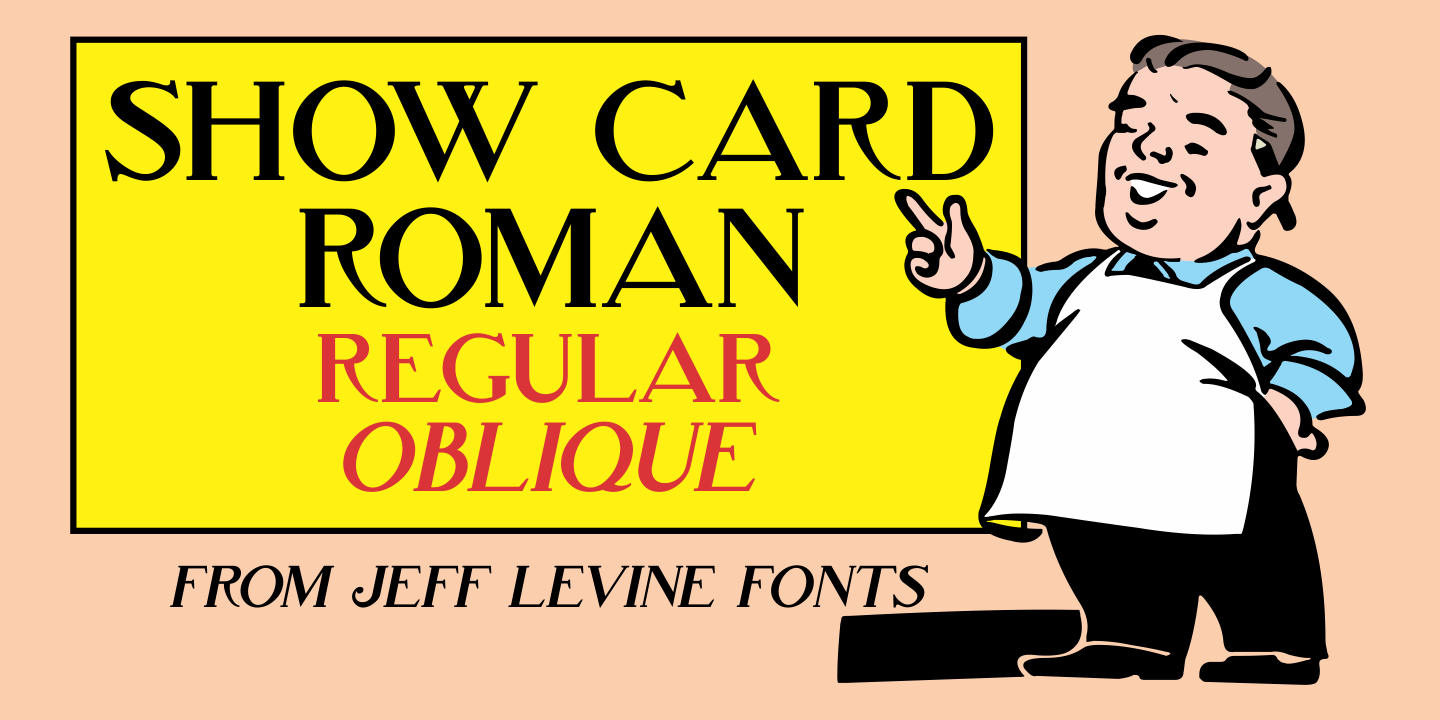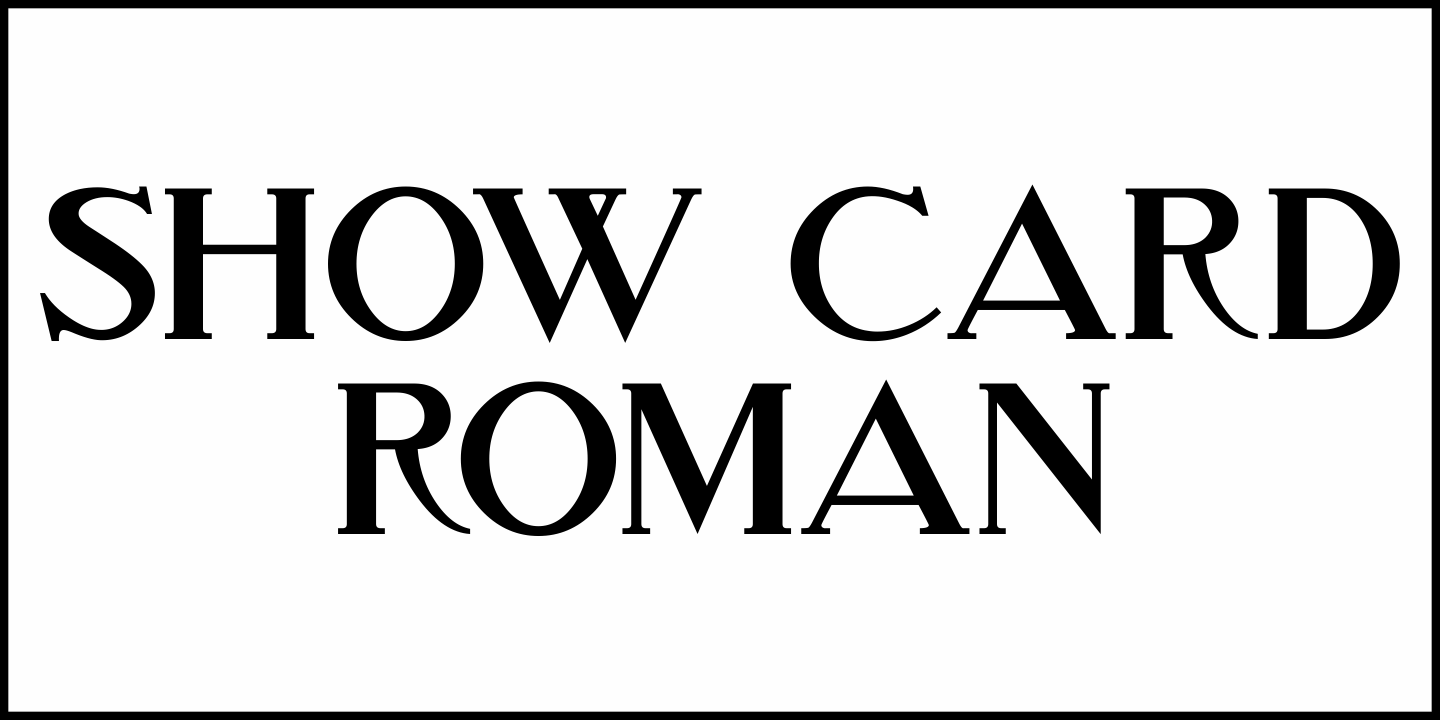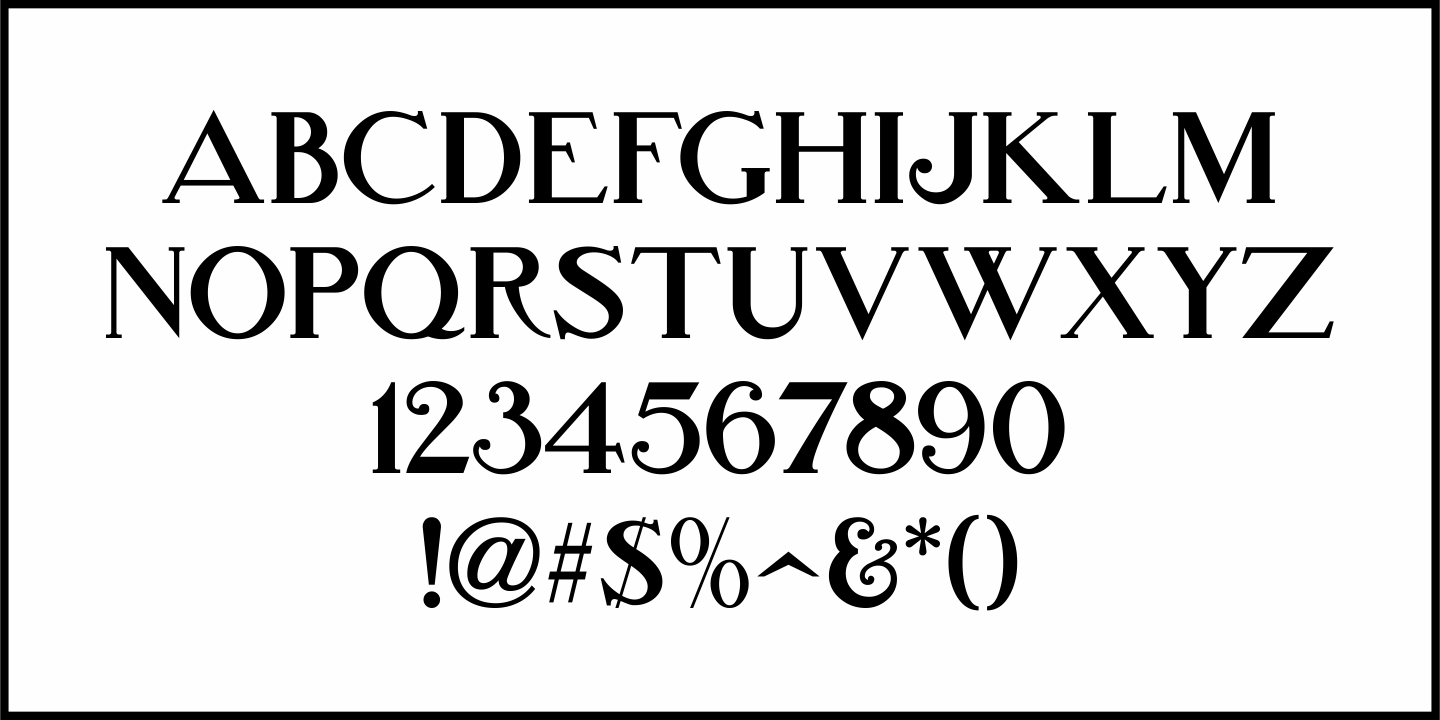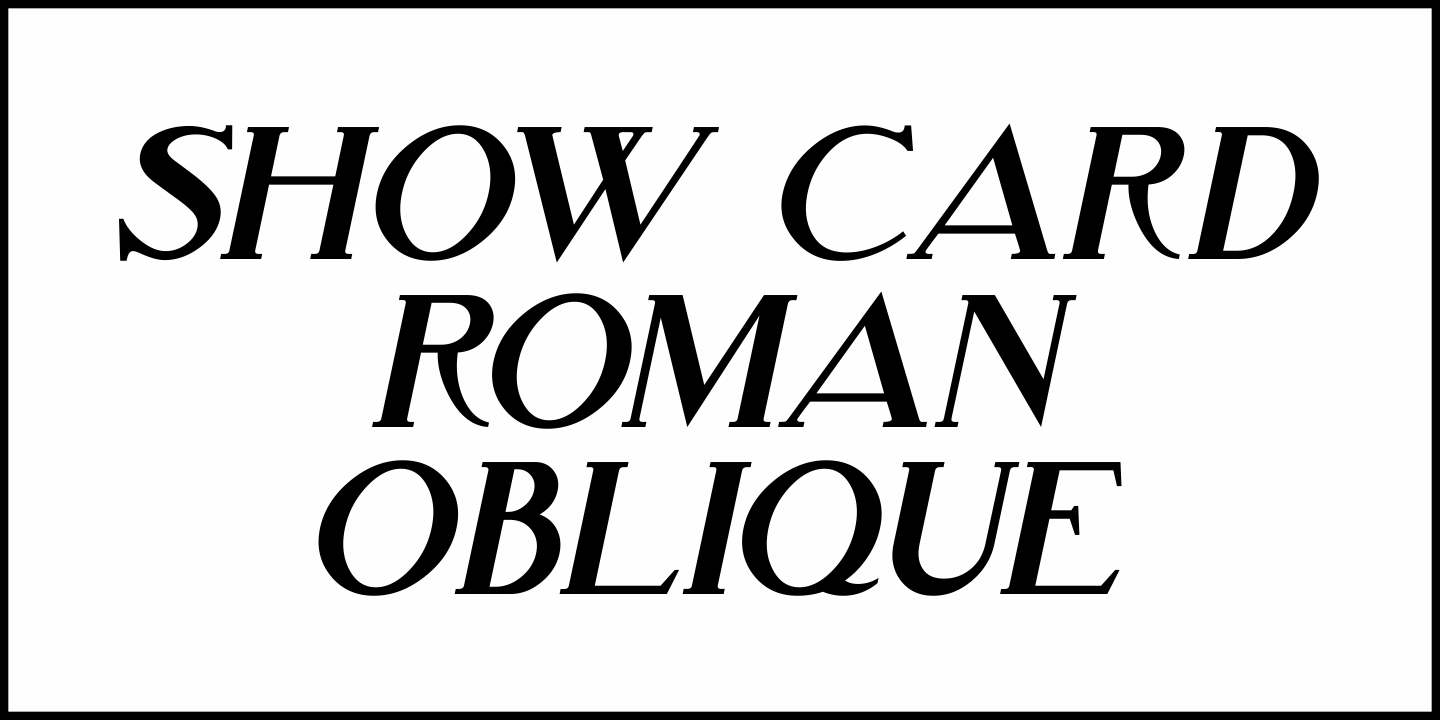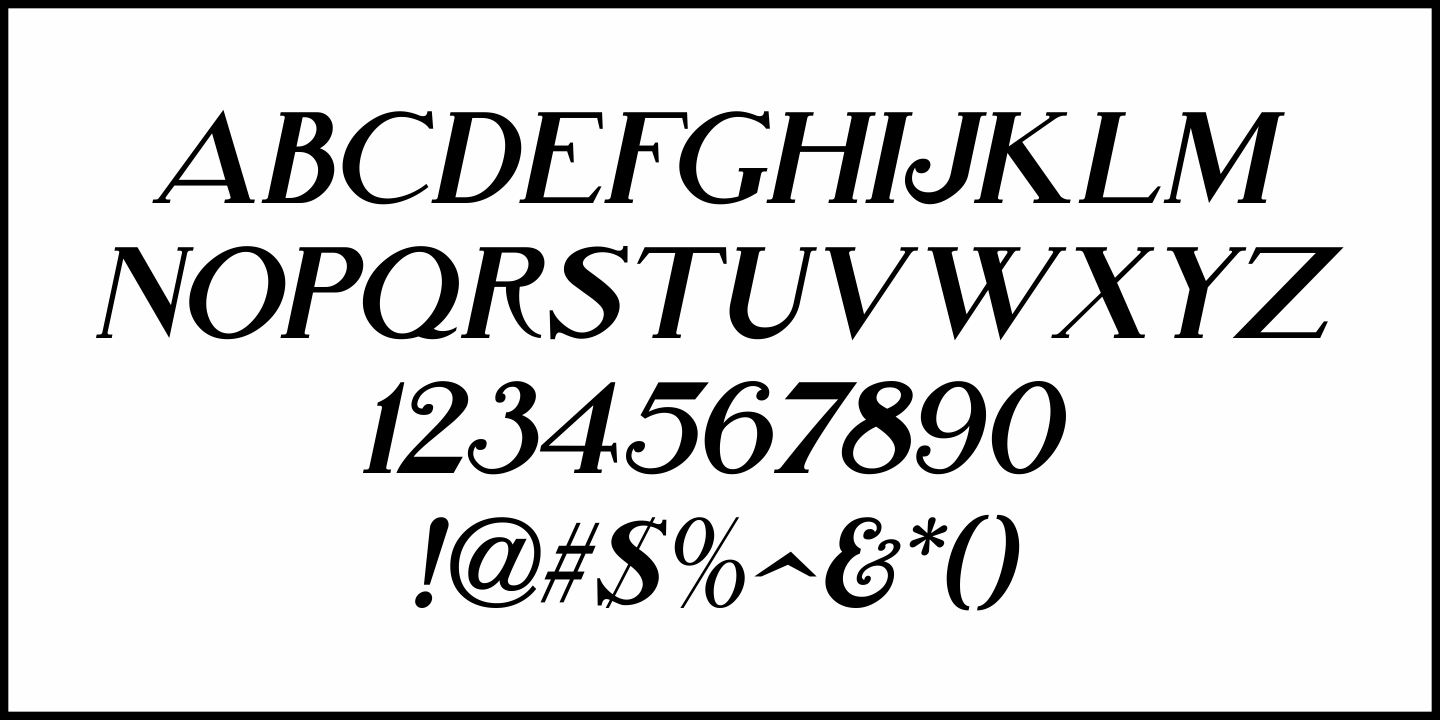
Show Card Roman
Art Nouveau serif capitals and numerals in the 1917 instructional book “A Roman Alphabet and How to Use It” were the inspiration for Show Card Roman JNL; available in both regular and oblique versions.
Show Card Roman JNL Regular by Jeff Levine Fonts